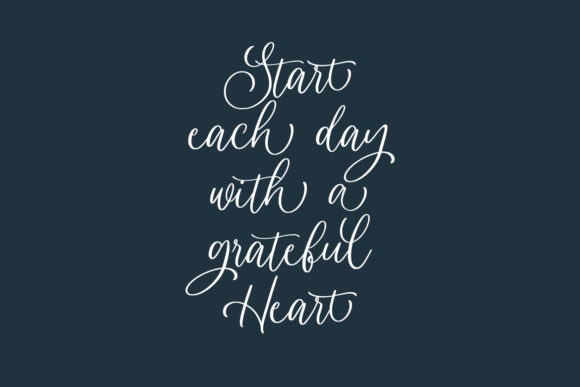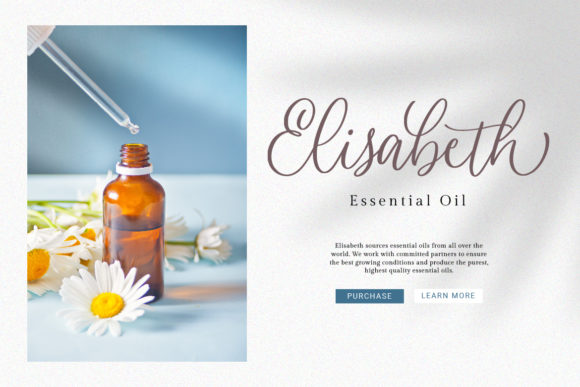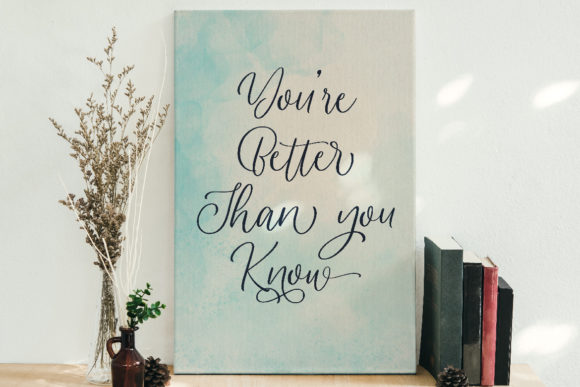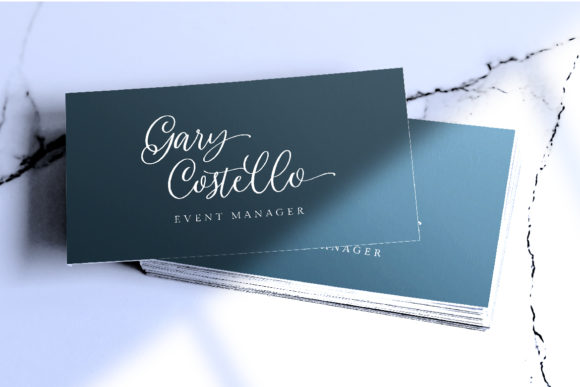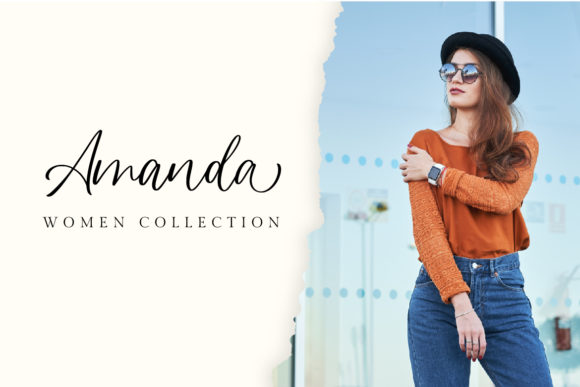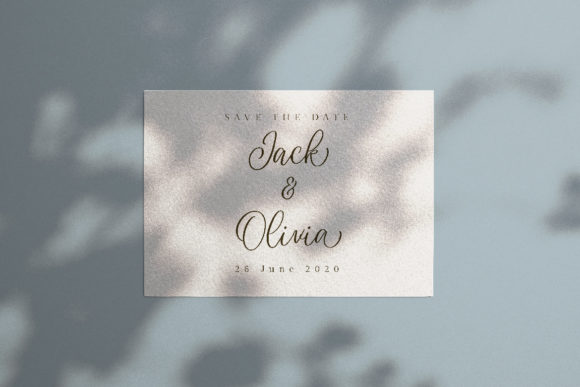
Discover the Elegance of Dailova Font: A Flowing Handwritten Script
In the world of typography, few fonts manage to capture the essence of elegance and sophistication as effectively as the Dailova Font. This beautifully crafted, flowing handwritten font is designed to add a touch of class and refinement to any project. Whether you’re a seasoned designer or a crafting enthusiast, Dailova is sure to captivate you with its incredibly distinct and timeless style.
What Makes Dailova Font Stand Out?
Dailova Font is not just another addition to the vast sea of typefaces available today. It stands out for several reasons, primarily due to its elegant touch that brings a sense of fluidity and movement to your designs. This font is meticulously crafted to ensure that each letter, from the uppercase and lowercase letters to the punctuation marks, swashes, and glyphs, exudes a sense of harmony and balance.
The Perfect Choice for Your Favorite Projects
Whether you’re working on a branding project, crafting beautiful wedding invitations, designing bespoke stationery, or creating engaging content for social media, Dailova Font is the perfect companion. Its versatility means it can be used across a wide range of applications, from digital platforms to print materials. The font’s unique character ensures that your designs will stand out in a crowd, making it an excellent choice for anyone looking to add a personal touch to their work.
One of the technical features that make Dailova Font particularly appealing to designers is its PUA (Private Use Area) encoding. This means that the font includes a comprehensive range of glyphs and swashes that are easily accessible. Designers can effortlessly navigate through the font’s extensive library of characters, allowing for greater creativity and flexibility in their work. This feature is especially beneficial for projects that require a high level of customization and personalization.
Why Dailova Font is a Timeless Choice
Trends in design come and go, but a truly timeless font remains relevant across different styles and epochs. Dailova Font achieves this through its classic yet contemporary design. The flowing script style, reminiscent of handwritten calligraphy, brings warmth and personality to any design. Its timeless appeal ensures that your projects will not only look great today but will also stand the test of time, avoiding the dated look that can quickly render some fonts obsolete.
How to Use Dailova Font Effectively
To make the most of Dailova Font, consider the following tips:
- Pair it with Simplicity: Let Dailova be the star of your show. Pair it with simpler fonts or backgrounds to ensure it stands out.
- Experiment with Sizes: Play around with different font sizes to create visual hierarchies and add depth to your designs.
- Utilize Swashes: Take advantage of the glyphs and swashes available to add flair and uniqueness to your text.
- Consider the Context: Ensure that the font aligns with the overall mood and message of your project.
Dailova Font is more than just a typeface; it’s a design statement. Its elegant and flowing script style, combined with PUA encoding for easy access to glyphs and swashes, makes it a versatile and powerful tool for designers and crafters alike. Whether you’re aiming to create something classic and sophisticated or modern and eye-catching, Dailova Font offers the perfect blend of style, functionality, and creativity. So, fall in love with its distinct and timeless style, and let Dailova bring your designs to life in spectacular fashion.